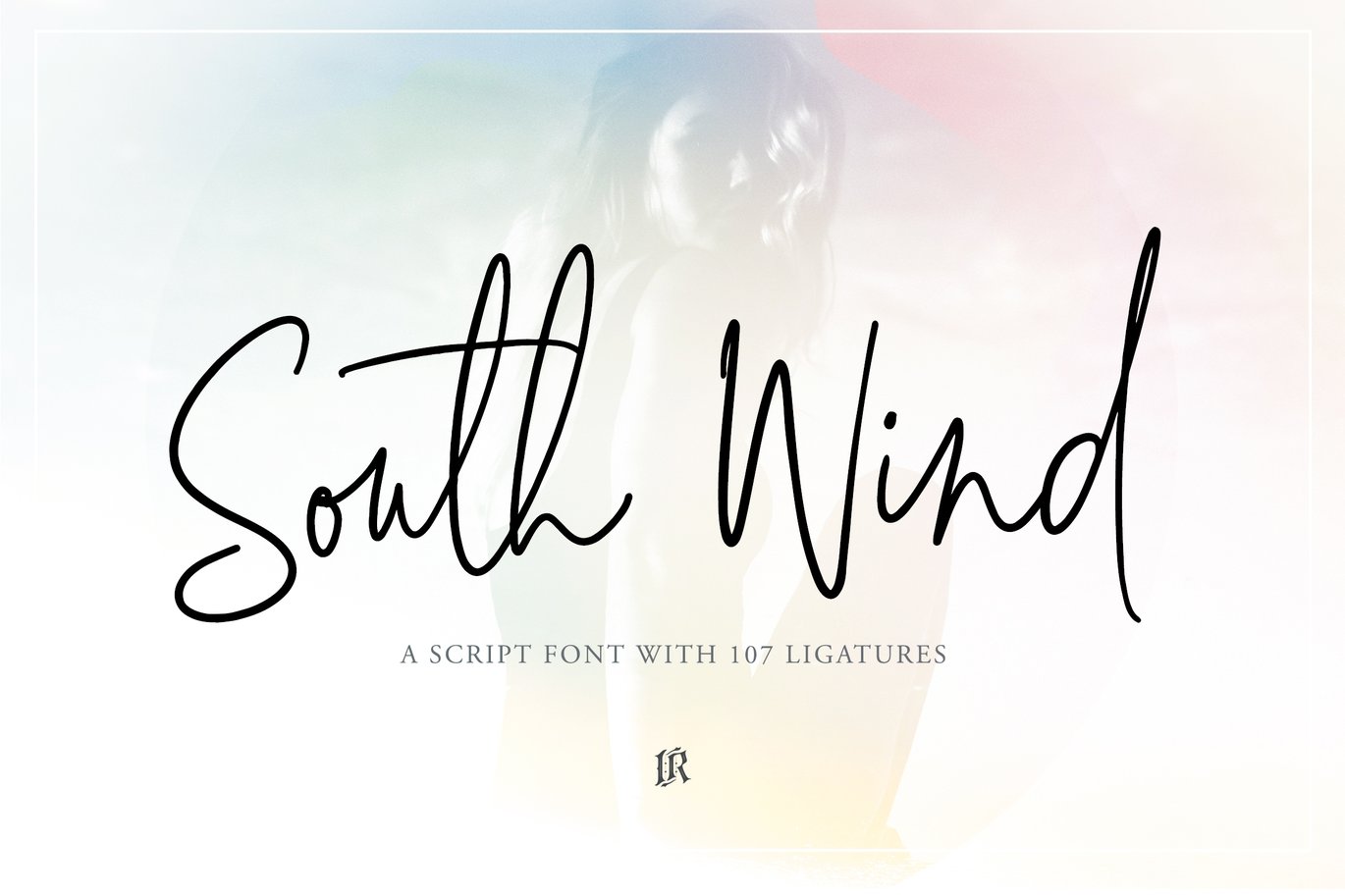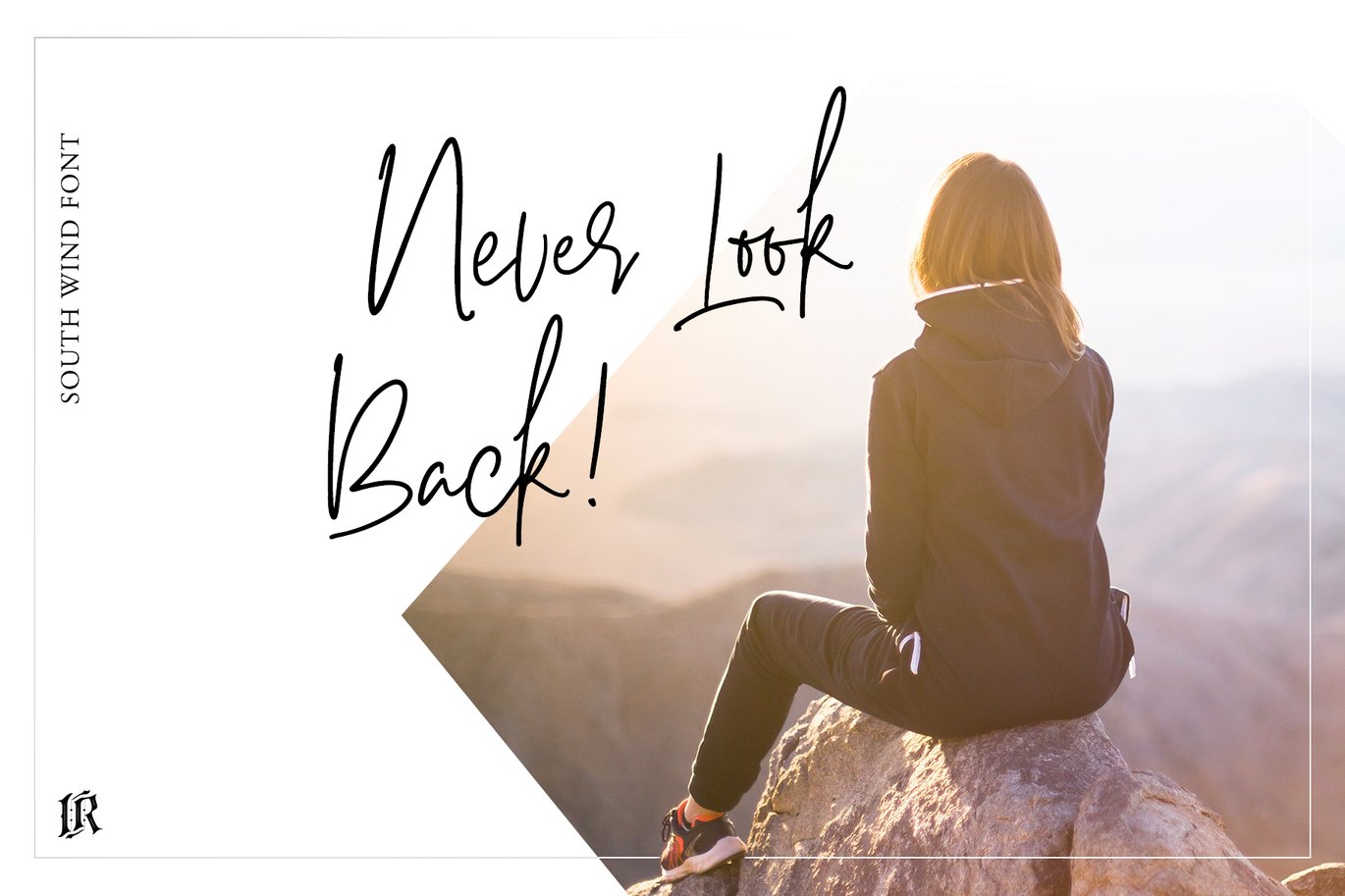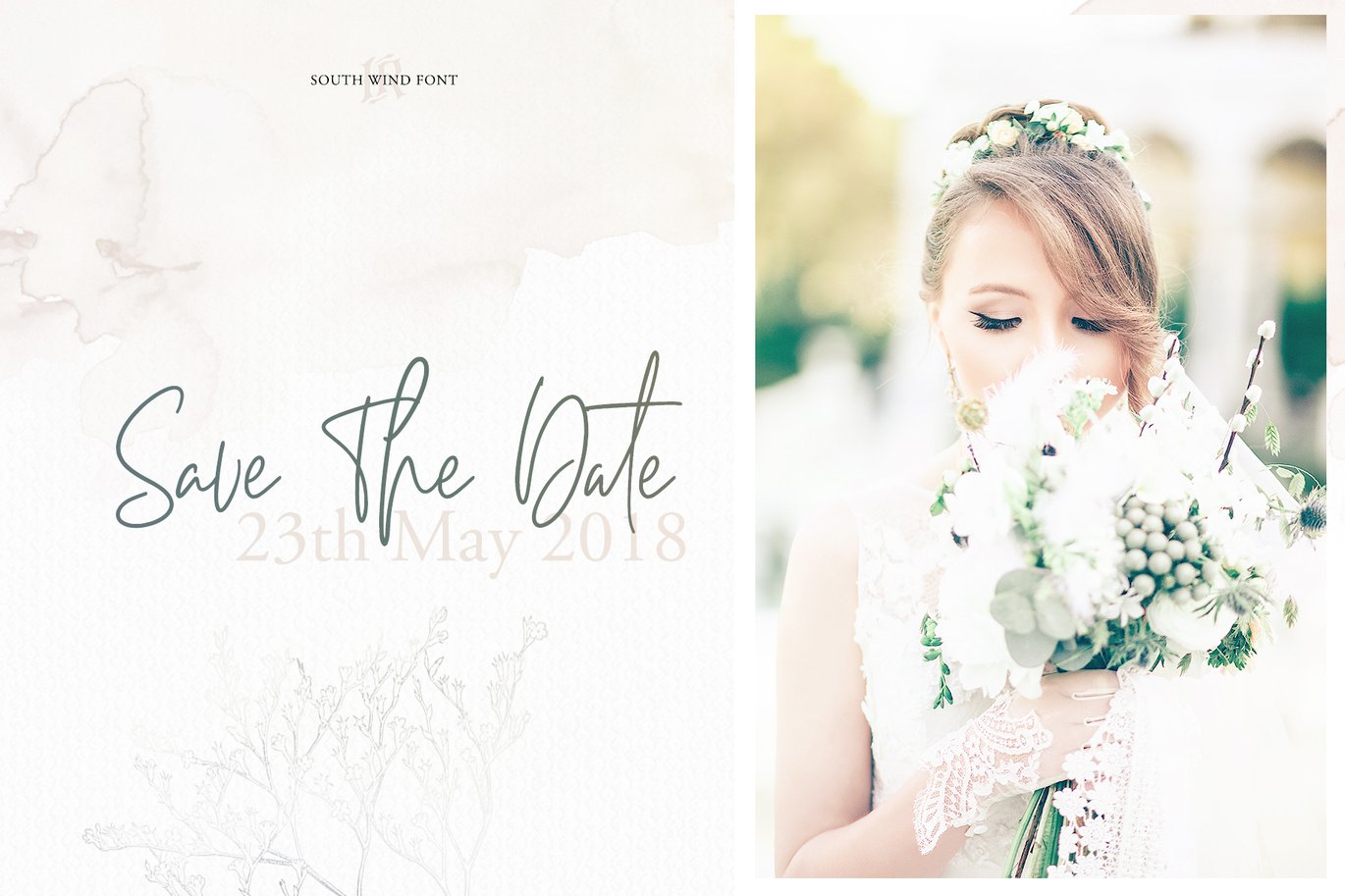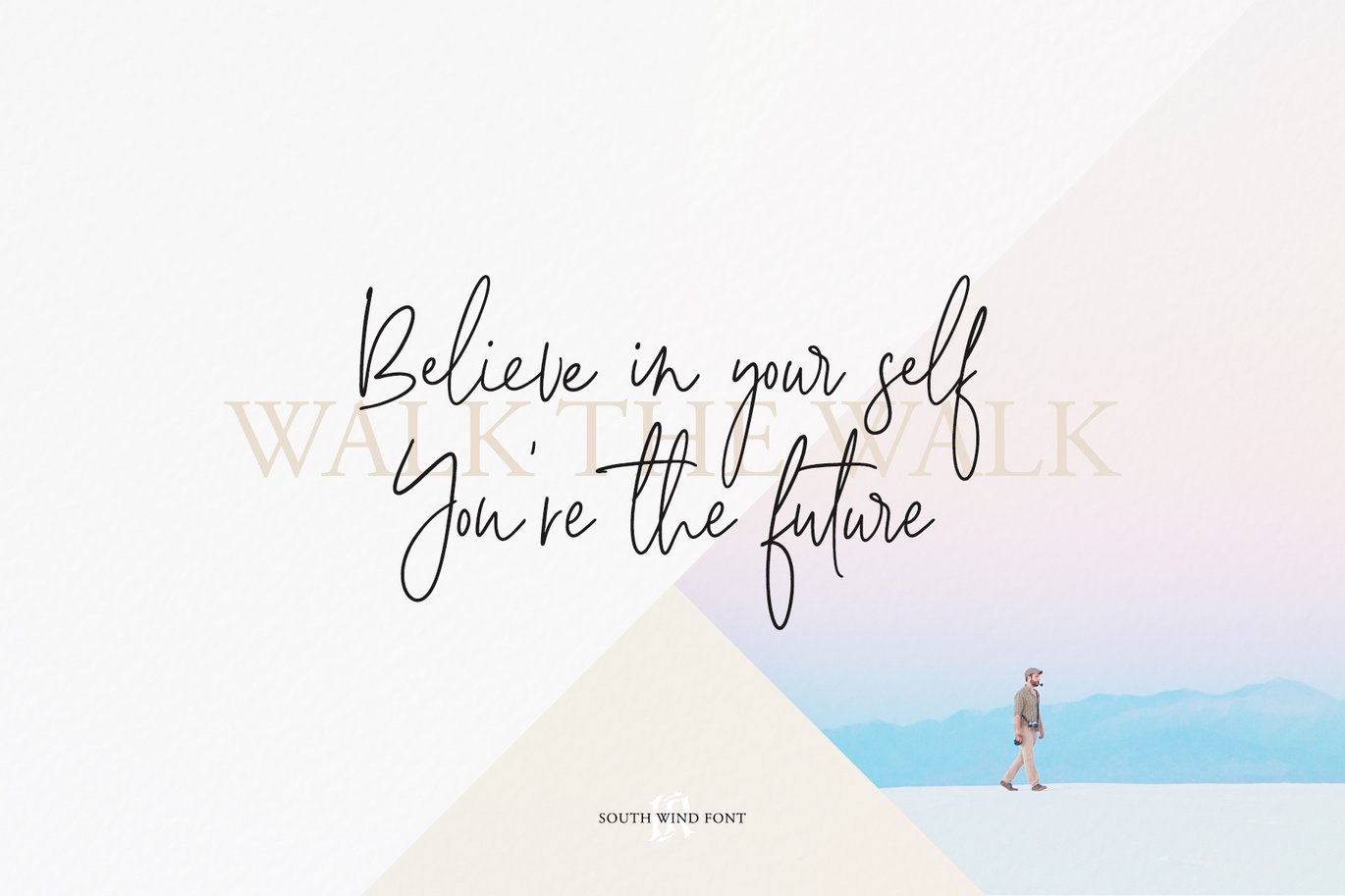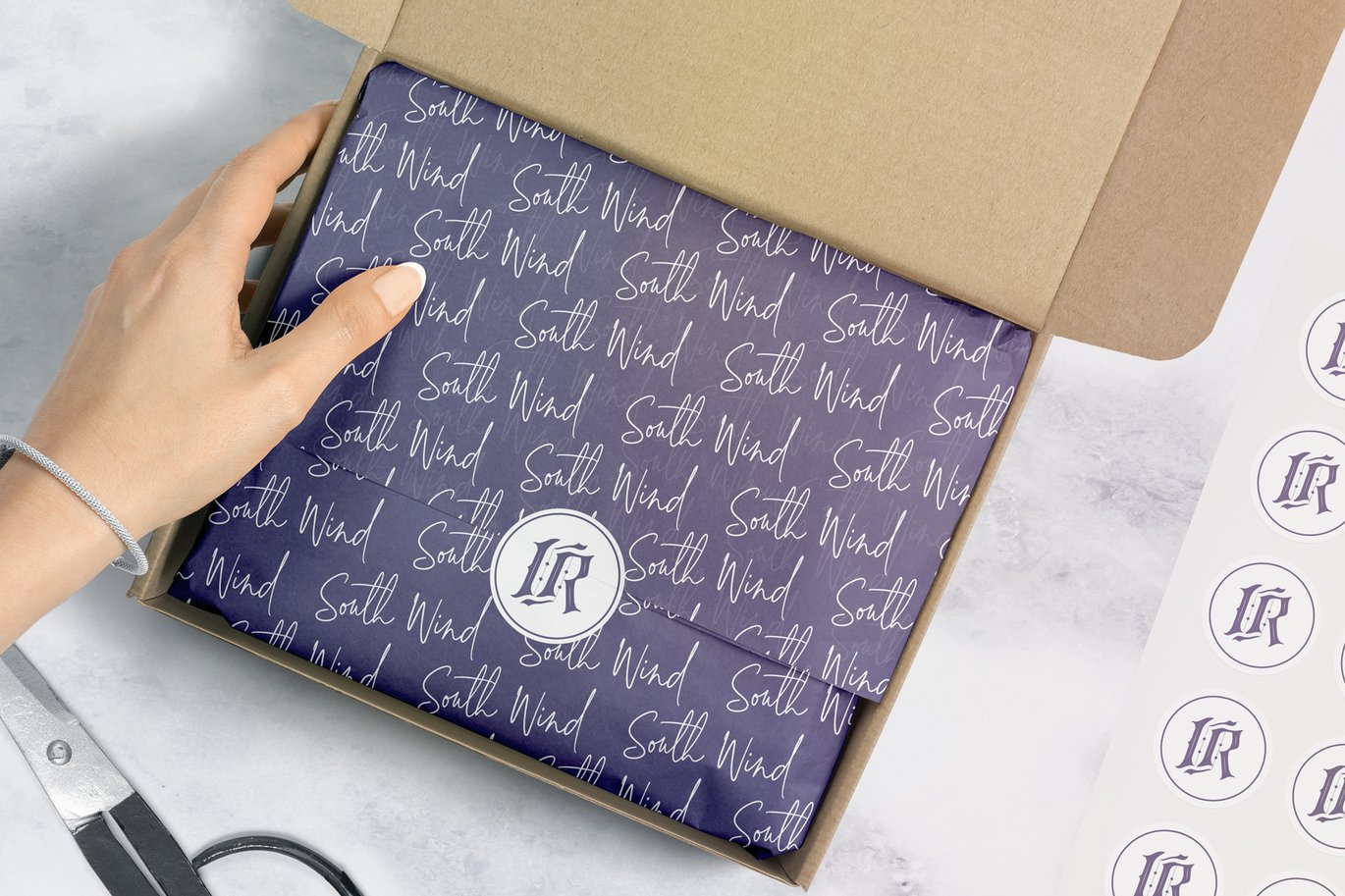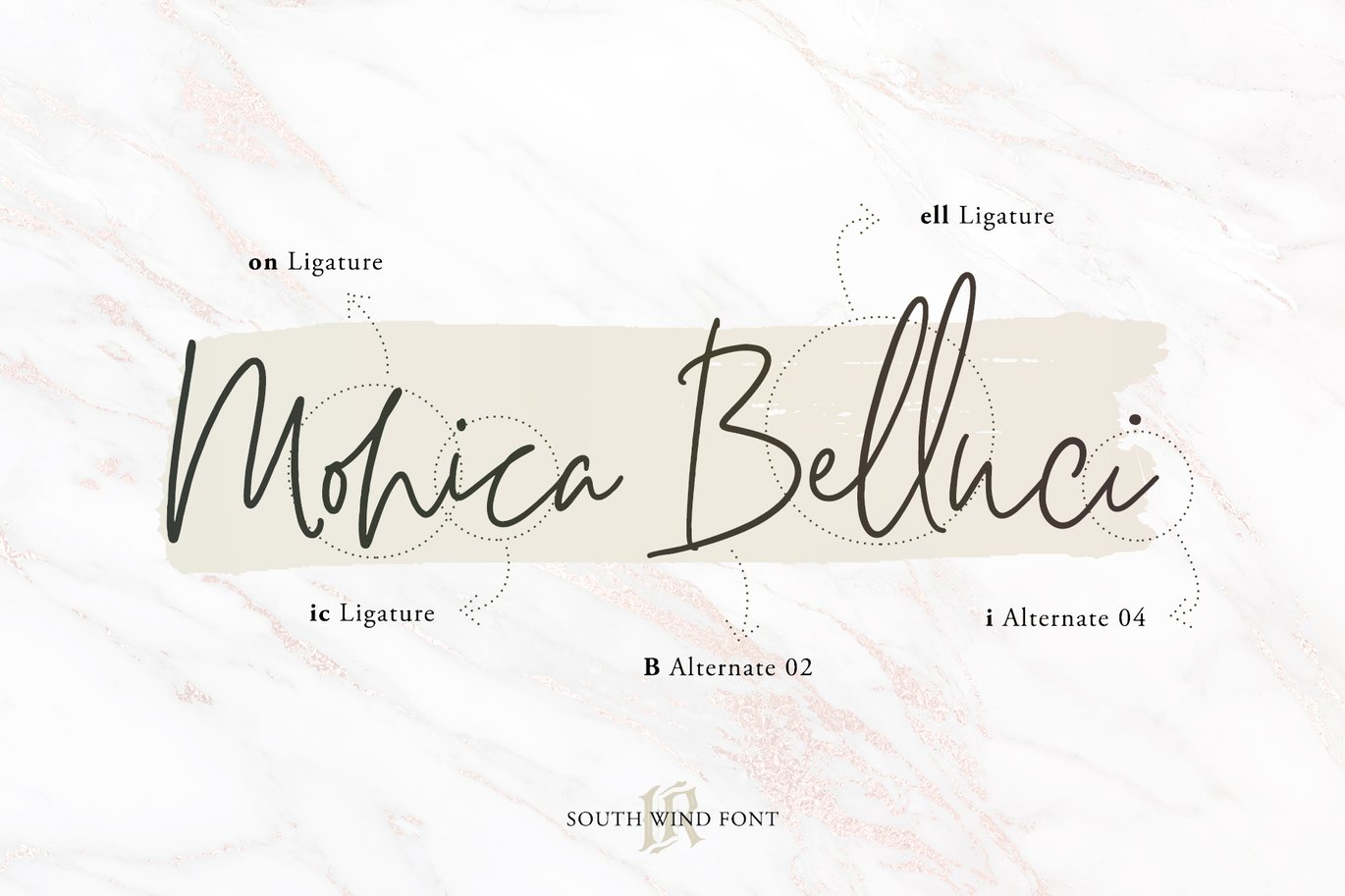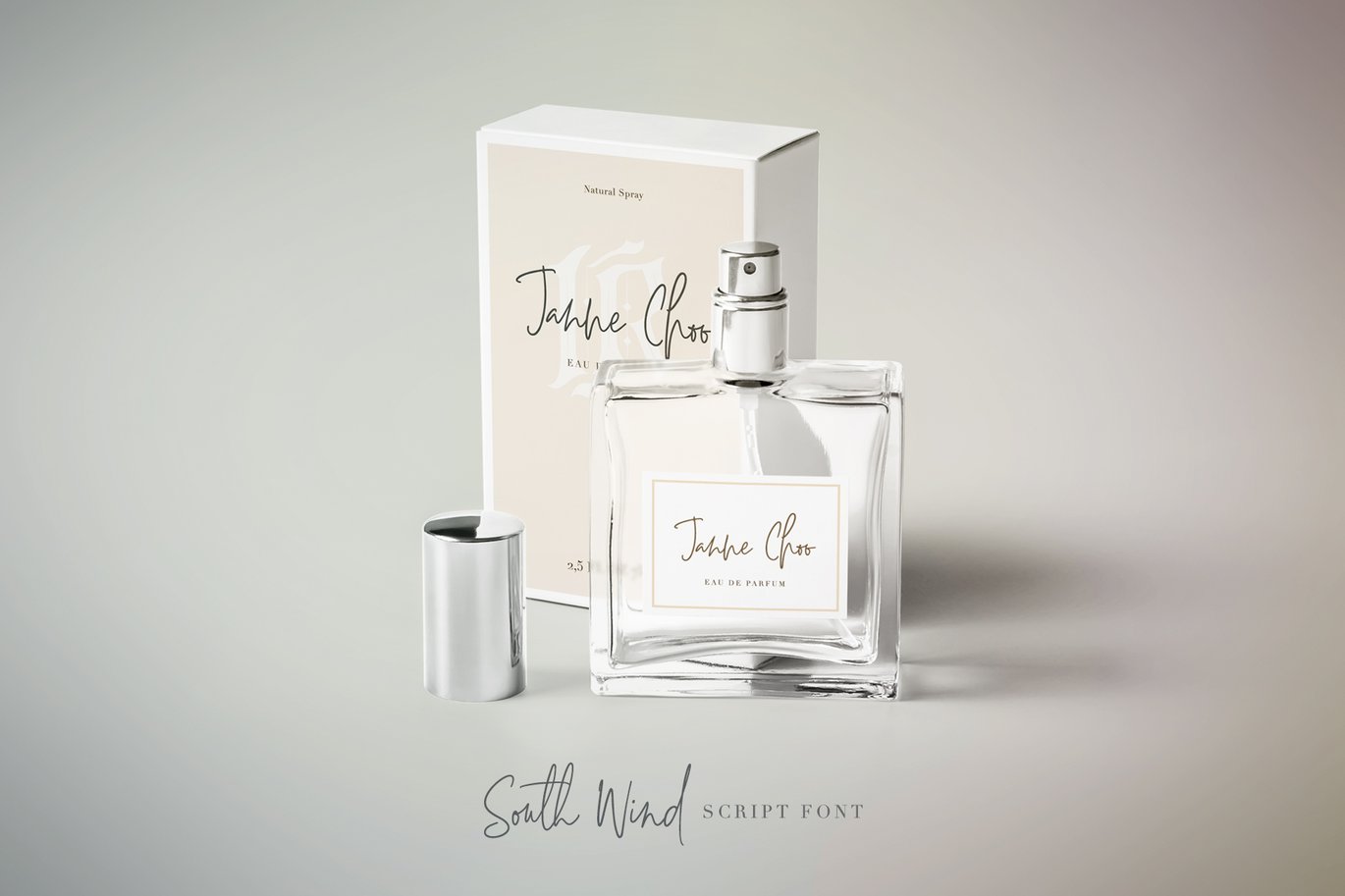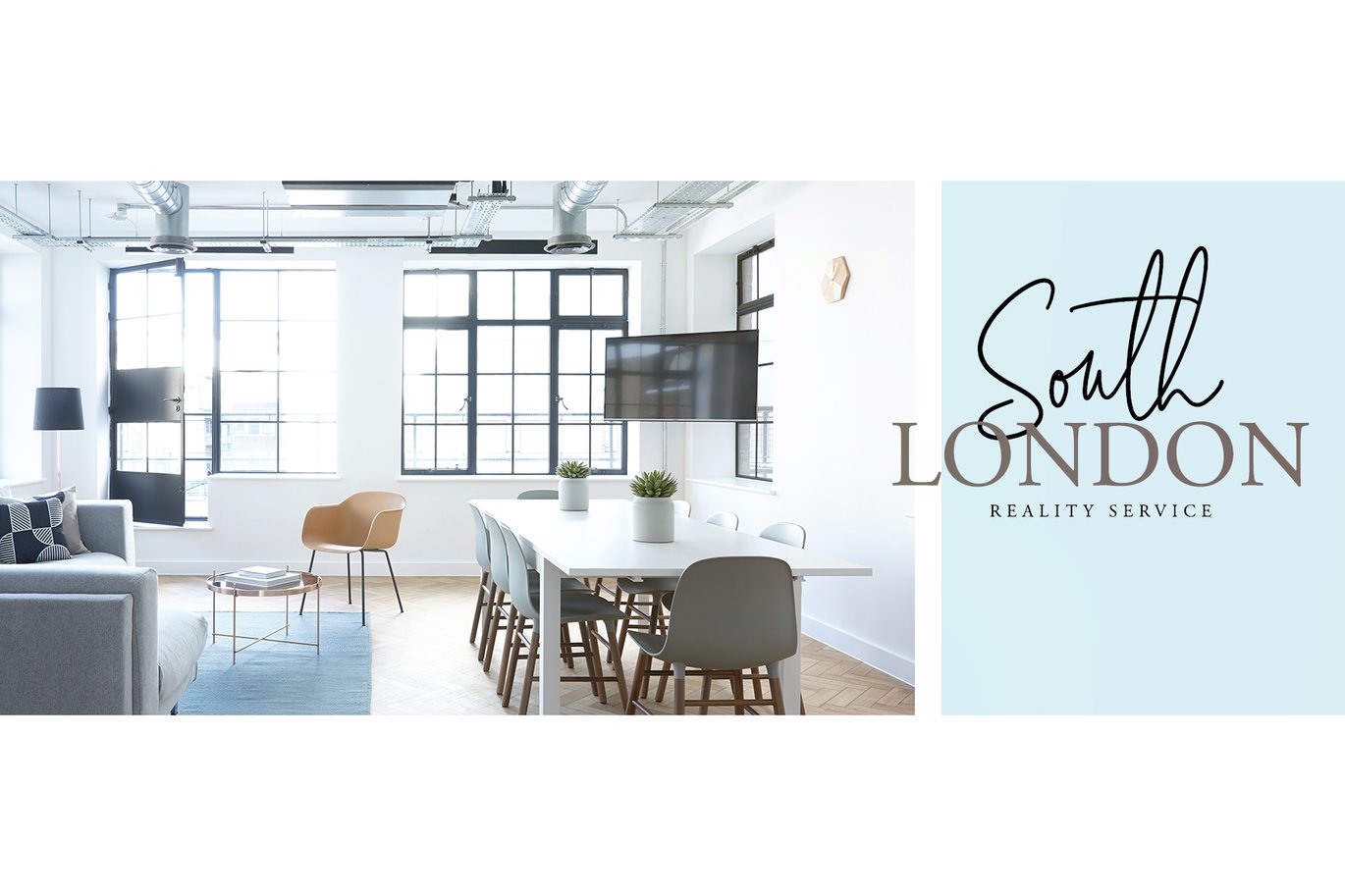
South Wind Font
South Wind Font is a handlettered font with 107 ligatures, lot of alternate characters and multilingual support. Is ideal for blog website, instagram, branding, invitations, business cards, weddings and many more.
Ligatures list:
ab ae al am an ar as at ax ay bb bl cc ch cl ct dd ee ef el en ep er es et ff ft gh ia ic ie il in it iu kt ll of ok ol om on oo op ot ov rr sh sl sm ss st th ts tt
Af Ap As Be Dl Em Es Et Eu Ft If Is It Kt Ml Mr Ms Mt Ph Pl Pt Se Sh Sl St Us
outh all alt arr ass can cus ell esl etl ett ill obl old oll oth out sim ted
South Wind font also include multilingual support for Western and Central Europe.
South Wind Font is a set of 542 glyphs, Upper and Lowercase characters with 107 ligatures, numerals, lot of punctuation glyphs, 3 alternates for each lowercase character and 2 alternates for each uppercase character.
South Wind Font Italic The original font, in italic style
South Wind Font Alt1 The original font, with an alternate set of uppercase and lowercase letters changed for the standard characters.
South Wind Font Alt2 The original font, with an alternate set of uppercase and lowercase letters changed for the standard characters.
South Wind Font Alt3 The original font, with an alternate set of uppercase and lowercase letters changed for the standard characters.